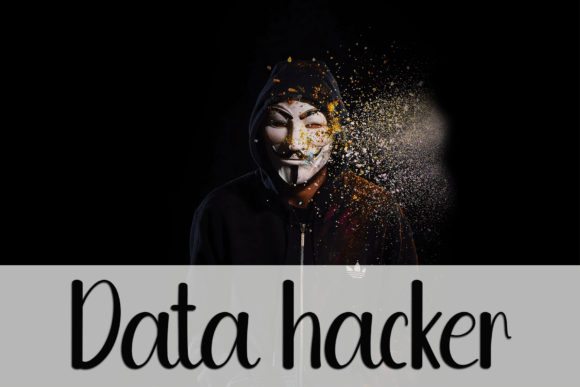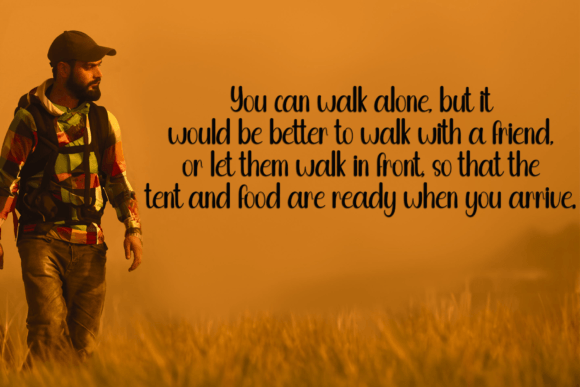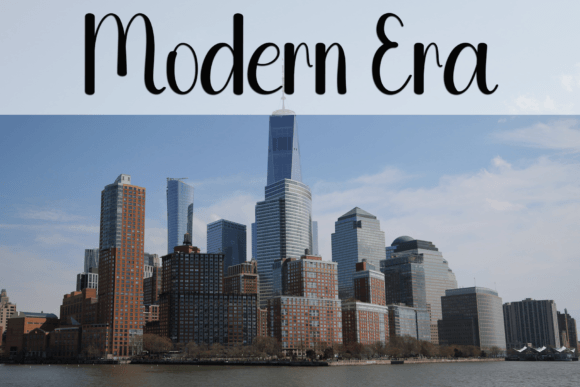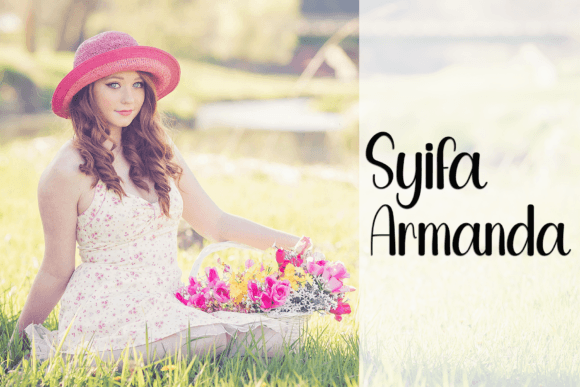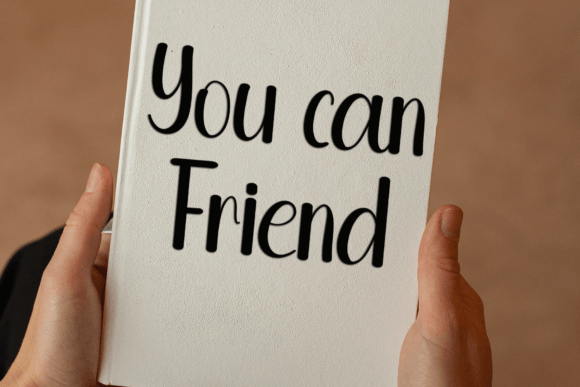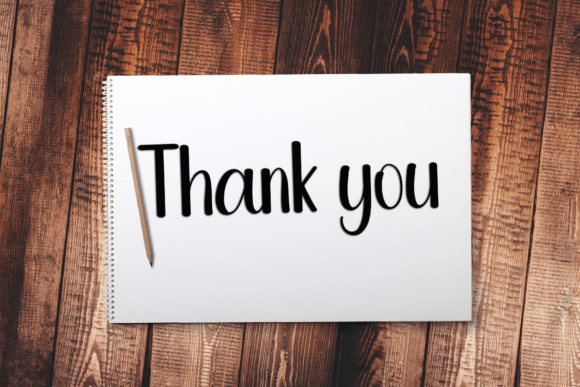
Introducing Handmade Font: The Ultimate Playful and Versatile Typeface
Are you a designer or crafter looking for a font that can elevate your creative projects to new heights? Look no further than Handmade Font, a cool, simple, and playful handwritten font that’s incredibly versatile and perfect for a wide range of designs.
The Charm of Handmade Font
Handmade Font is a beautiful, hand-crafted typeface that’s designed to bring a touch of personality and whimsy to your designs. Its playful and carefree nature makes it perfect for projects that require a friendly and approachable tone. Whether you’re working on a logo, branding materials, social media graphics, or craft projects, Handmade Font is sure to make your designs stand out.
Key Features of Handmade Font
- Playful and Handwritten: Handmade Font has a delightful, handwritten feel that’s perfect for creating unique and eye-catching designs.
- Simple and Clean: Despite its playful nature, Handmade Font has a clean and simple design that’s easy to read and versatile enough to use in a variety of contexts.
- Incredibly Versatile: Handmade Font is suitable for a wide range of designs, from logos and branding materials to social media graphics, craft projects, and more.
Why Choose Handmade Font?
So, why should you choose Handmade Font for your next design project? Here are just a few reasons:
- Adds Personality to Your Designs: Handmade Font brings a touch of personality and whimsy to your designs, making them more engaging and memorable.
- Easy to Read: Despite its playful nature, Handmade Font is easy to read, making it perfect for use in body text, headings, and titles.
- Perfect for Branding and Marketing: Handmade Font is perfect for use in branding and marketing materials, such as logos, business cards, and social media graphics.
Using Handmade Font in Your Designs
Handmade Font is incredibly easy to use and can be incorporated into a wide range of designs. Here are a few ideas to get you started:
- Logos and Branding Materials: Use Handmade Font to create unique and memorable logos, business cards, and other branding materials.
- Social Media Graphics: Add a touch of personality to your social media graphics, such as Facebook posts, Instagram stories, and Twitter headers.
- Craft Projects: Use Handmade Font to add a personal touch to your craft projects, such as handmade cards, gift tags, and DIY signs.
Tips for Getting the Most Out of Handmade Font
Here are a few tips for getting the most out of Handmade Font:
- Pair with Other Fonts: Handmade Font pairs well with other fonts, so don’t be afraid to try pairing it with different typefaces to create a unique look.
- Use it Consistently: Use Handmade Font consistently throughout your design to create a cohesive and recognizable brand identity.
Handmade Font is a cool, simple, and playful handwritten font that’s perfect for designers and crafters looking to add a touch of personality to their designs. Its versatility, readability, and playful nature make it an excellent choice for a wide range of projects, from logos and branding materials to social media graphics and craft projects. So why not give Handmade Font a try and see how it can elevate your designs to new heights?